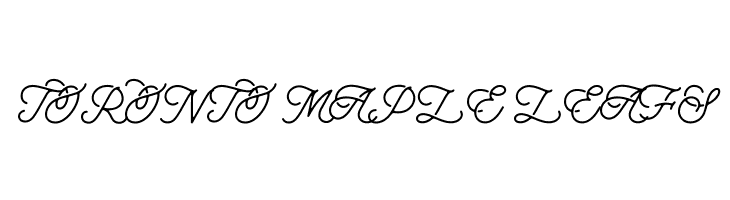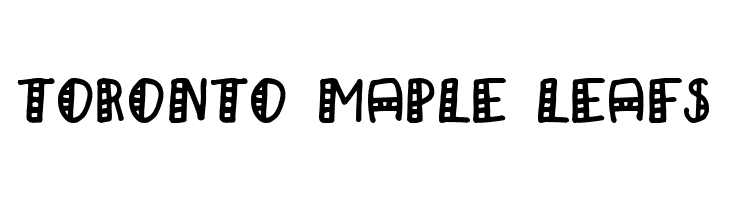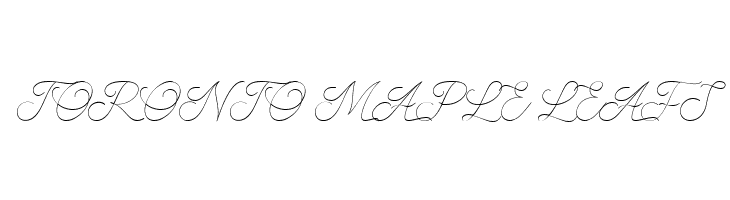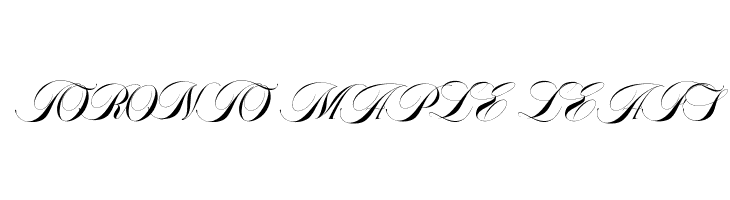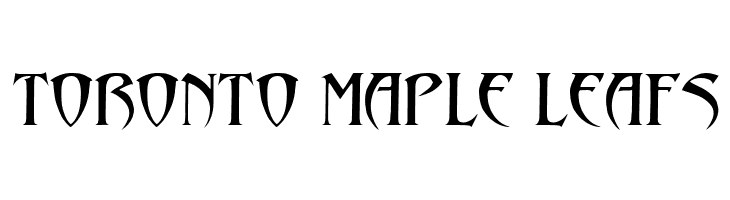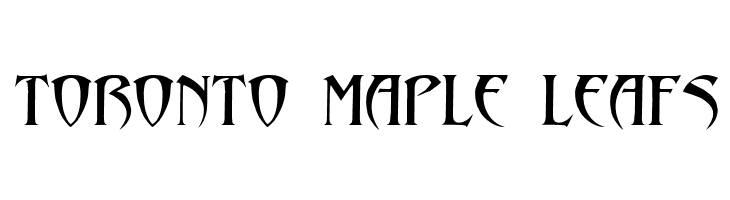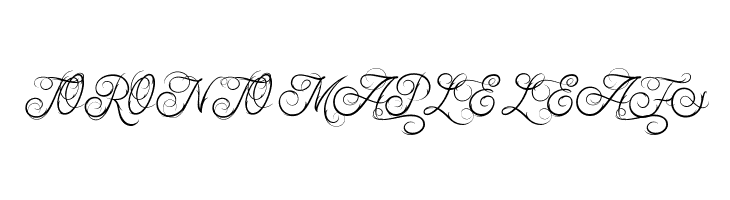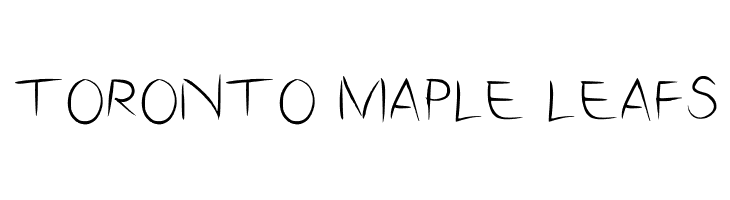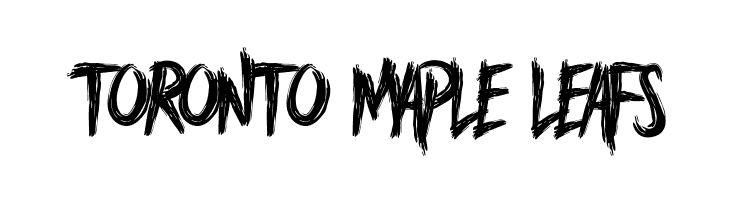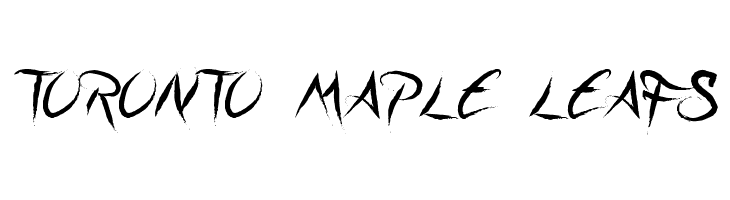
• a Papa
• A Quiet Sleep
A dynamic, brush-stroke font with an expressive, handwritten style.
• A Voice Liberty
A bold, hand-drawn font with rough, textured edges and dynamic strokes.
• A2 Script Medium
A whimsical, script-like font with a hand-drawn, artistic style.
• aaleyah-PERSONAL-USE-ONLY
An elegant script font with intricate loops and flowing connections.
• Ababil Script DEMO
An ornate and decorative script font with intricate swirls and flourishes.
• Abaddon Demo
• Abaddon!"
A bold, gothic-inspired font with sharp serifs and a medieval aesthetic.
• Abbassy Script
A graceful and elegant script font with flowing, intricate loops and swashes.
• Abella Script
An elegant script font with high contrast and decorative flourishes.